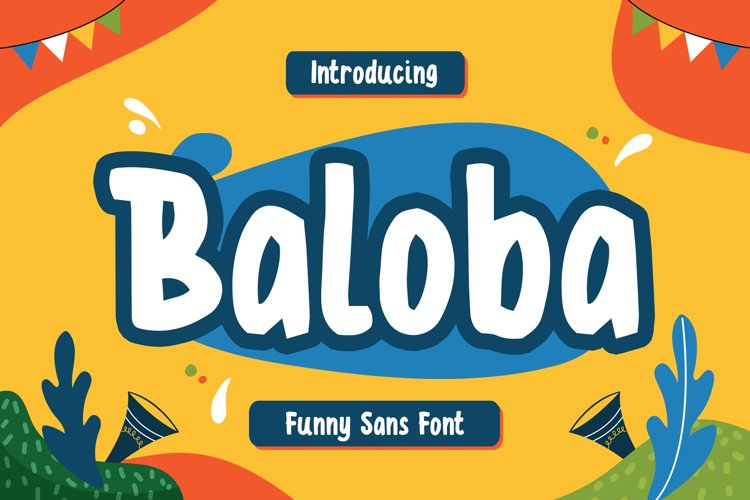
Baloba - Funny Sans
Baloba is a fun sans serif font.
It’s perfect for adding a playful and fun touch to all your children designs.
- Symbols & Punctuation
- Numeral
- Ligature
- Alternate